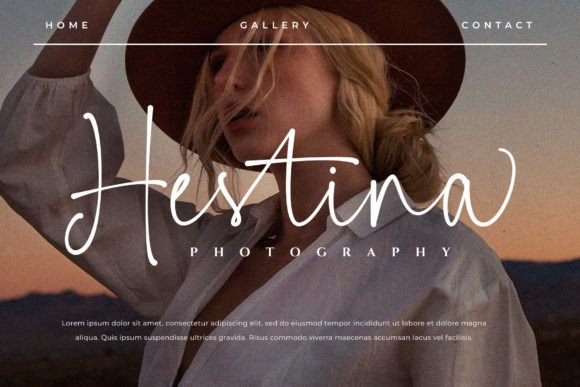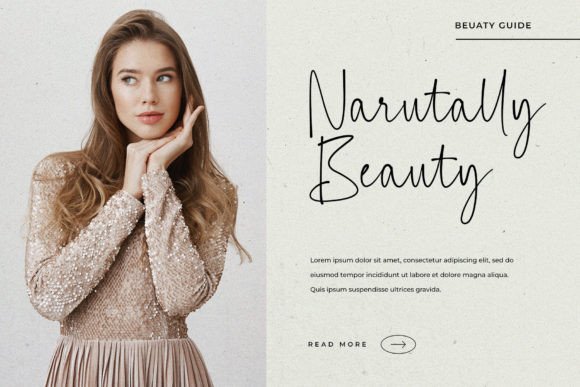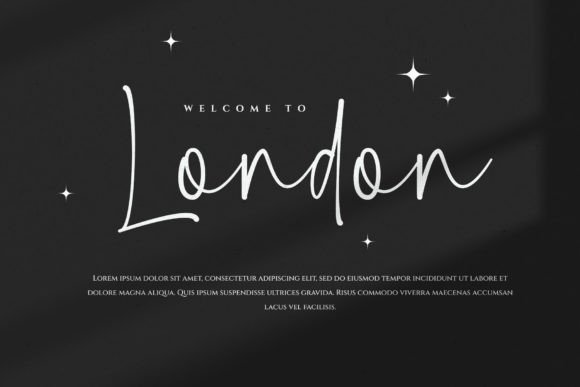
Introduction to Jesyta Font
As a designer, there’s nothing quite like the thrill of bringing a creative project to life. The moment when your vision starts to take shape, and the words or images begin to flow onto the page. For many of us, this is the moment we live for – the moment when our passion and skill come together in perfect harmony. And it’s this moment that makes a high-quality design resource like the Jesyta Font so valuable.
Whether you’re working on a logo, title, or watermark for a photography project, Jesyta Font is a beautiful choice that’s sure to elevate your design. With its chic and sophisticated style, it’s the perfect addition to any creative endeavor – from magazine covers and business projects to wedding events and album art. And the best part? It’s available for free download, complete with a transparent background that makes it easy to customize and integrate into your design.
Key Features of Jesyta Font
- High-quality, professional design resource ideal for creative projects
- Designed with precision and care for a crisp, clear appearance
Honest Review: Jesyta Font
As a designer, I’m always on the lookout for high-quality design resources to enhance my creative projects. Recently, I had the chance to try out the Jesyta Font, and here’s my honest review.
- Beautiful, elegant design: The Jesyta Font has a sophisticated and elegant feel to it, making it perfect for creative projects that require a touch of sophistication.
- High-quality glyphs: The font has a wide range of glyphs, including international characters, making it a great option for designers who work on projects that require multiple languages.
- Transparent background: The font’s transparent background makes it easy to use on any background, giving designers the flexibility they need to create stunning visuals.
- Not ideal for body text: While the Jesyta Font is perfect for headings and titles, it may not be the best choice for body text due to its elegant and sophisticated feel.
- No bold or italic weights: The font only comes in regular and italic weights, which may limit its use in certain design projects.
Overall, the Jesyta Font is a great addition to any designer’s toolkit. While it may have some limitations, its high-quality design and wide range of glyphs make it a valuable resource for any creative project. I highly recommend it for designers looking for a sophisticated and elegant font for their next project.
Jesyta Font
Jesyta Font is ideal for use in a variety of creative projects, including:
– Blog posts
– Presentations
– Marketing materials
– More.
Tips for Getting the Most Out of Jesyta Font
For the best results, use Jesyta Font on a transparent background or with a high-quality image. This will help the font stand out and add a touch of sophistication to your design. Additionally, experiment with different font sizes and styles to find the perfect look for your project.